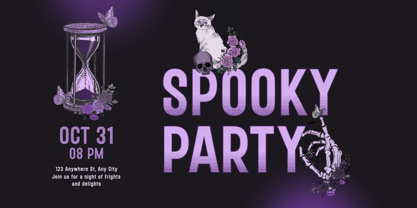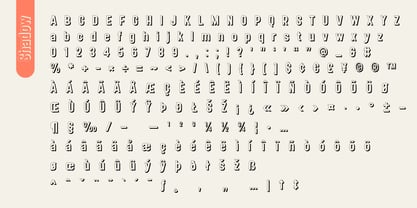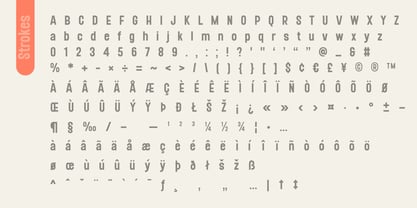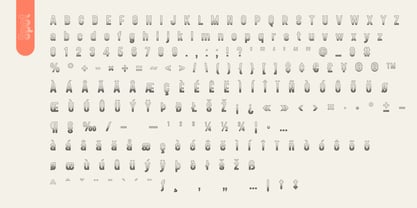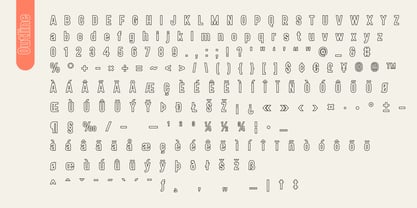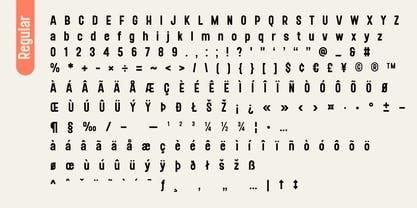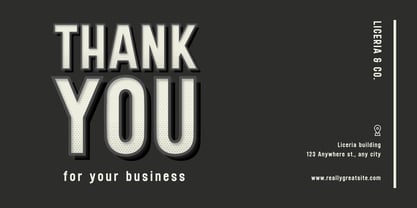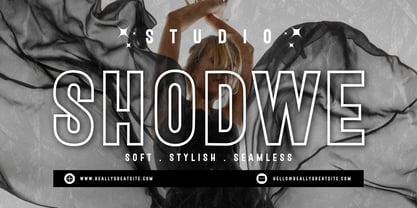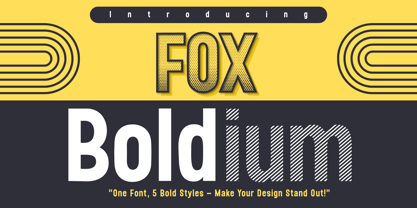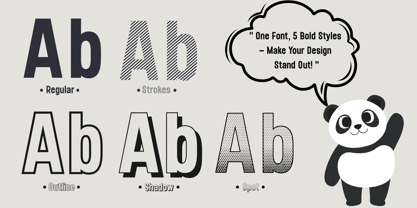
Fox Boldium Shadow
by Fox7
The Fox Boldium Shadow Font Family was designed by Rattana Rattanawan and published by Fox7. Fox Boldium Shadow contains 5 styles and family package options. More about this family
Fox Boldium is a striking display font that comes with 5 bold styles to make your design stand out in any project. Its playful yet powerful look is perfect for eye-catching headlines, posters, branding, logos, and modern advertising. This font family includes Regular, Strokes, Spot, Outline, and Shadow styles—allowing you to mix, match, and layer for endless creative combinations. Whether you’re designing retro-inspired graphics, bold product packaging, or dynamic social media visuals, Fox Boldium brings instant impact and personality to your work. With its clean construction and strong versatility, this font is designed to grab attention and deliver your message with style and confidence. Perfect For: ☘︎ Posters & Flyers ☘︎ Retro & Modern Branding ☘︎ Bold Headlines & Titles ☘︎ Product Packaging ☘︎ Social Media Graphics ☘︎ Creative Merch Design